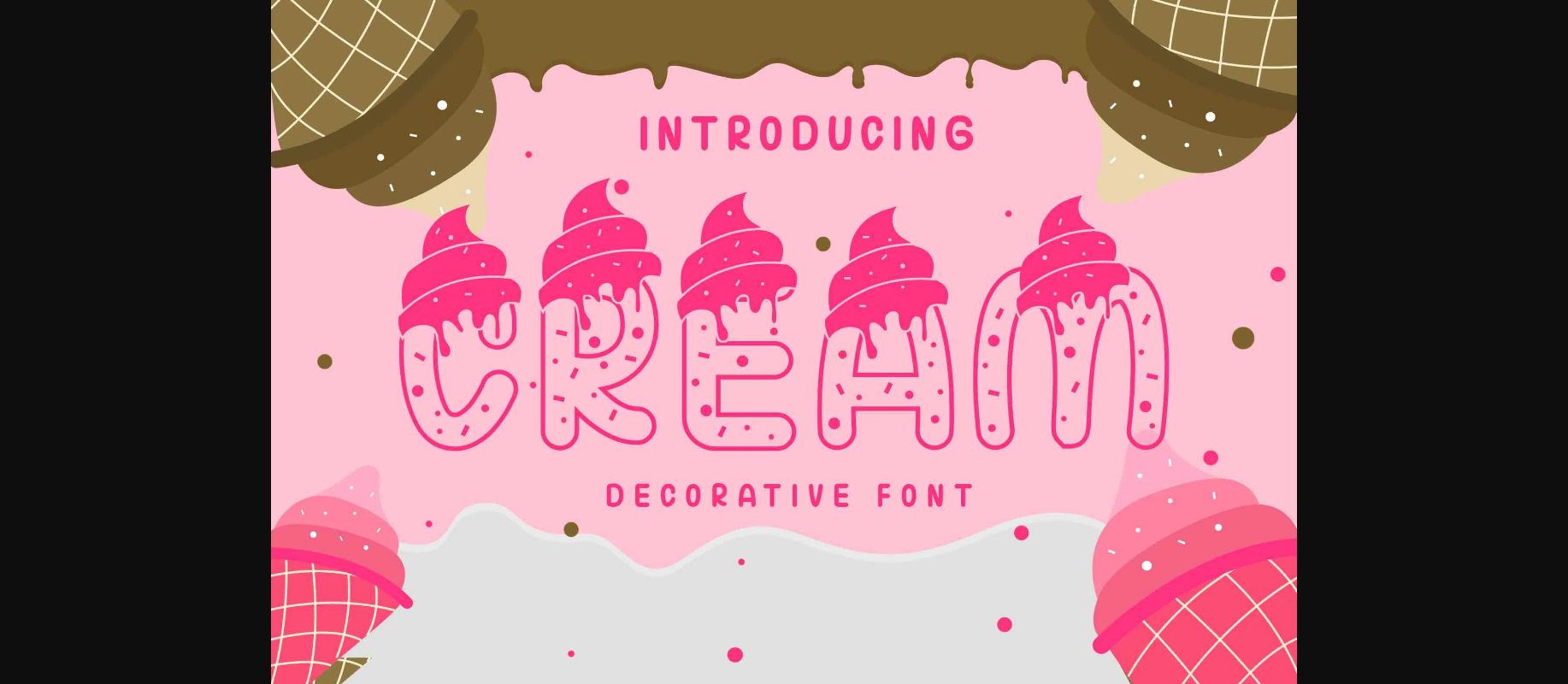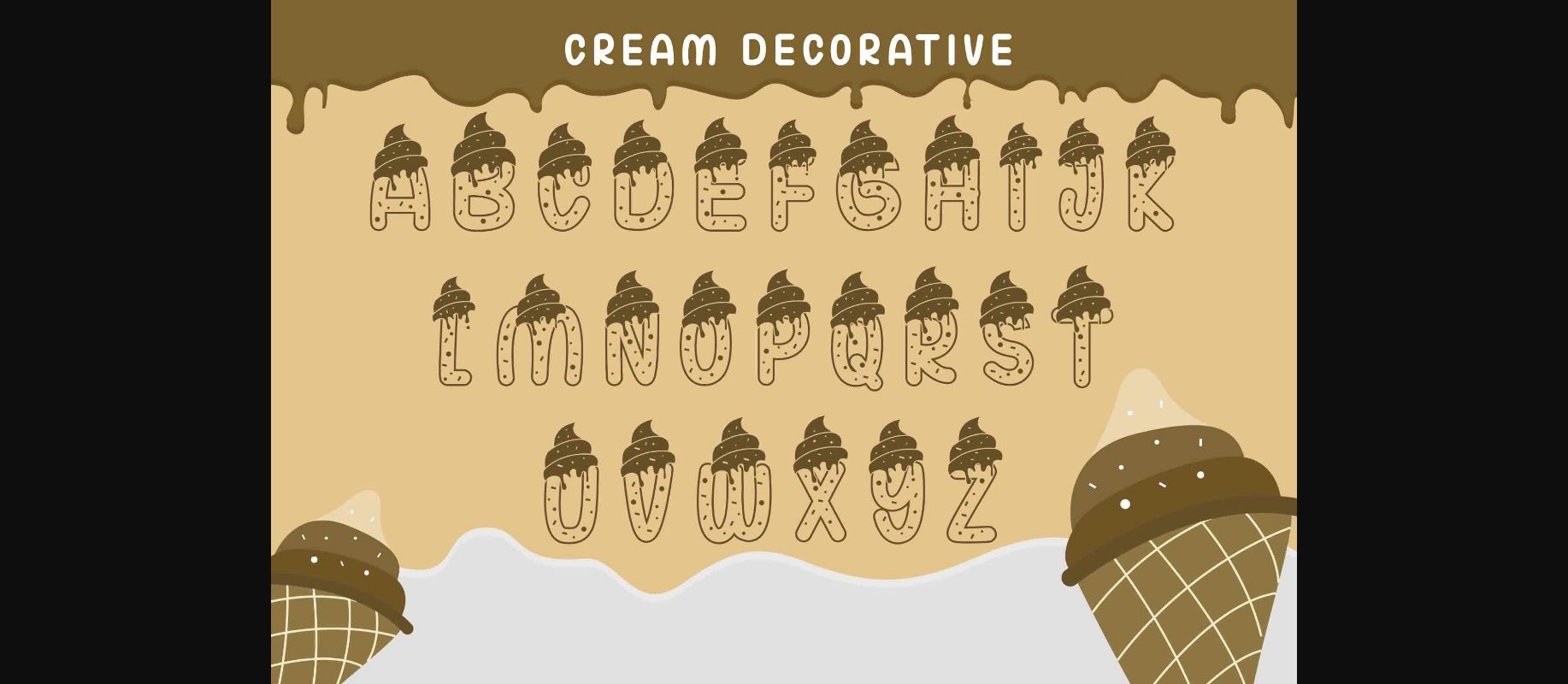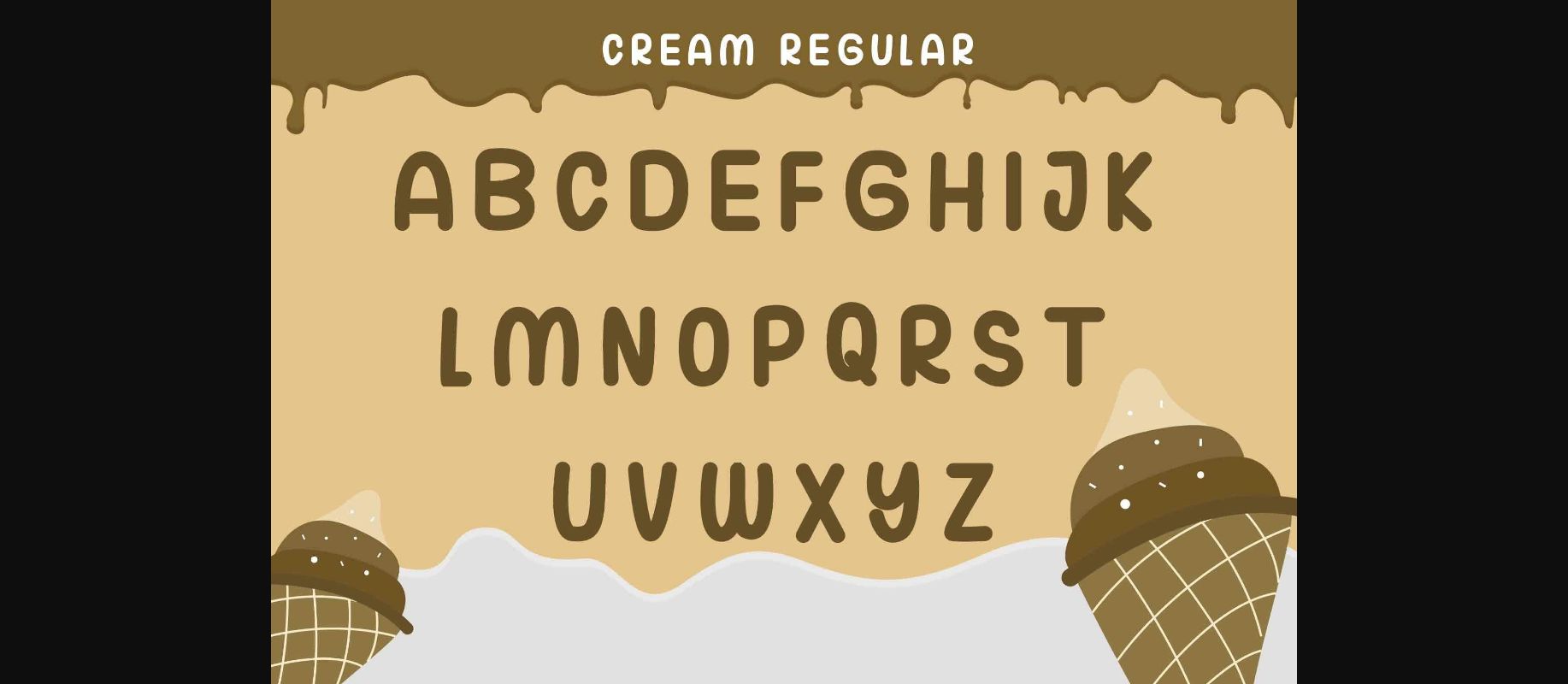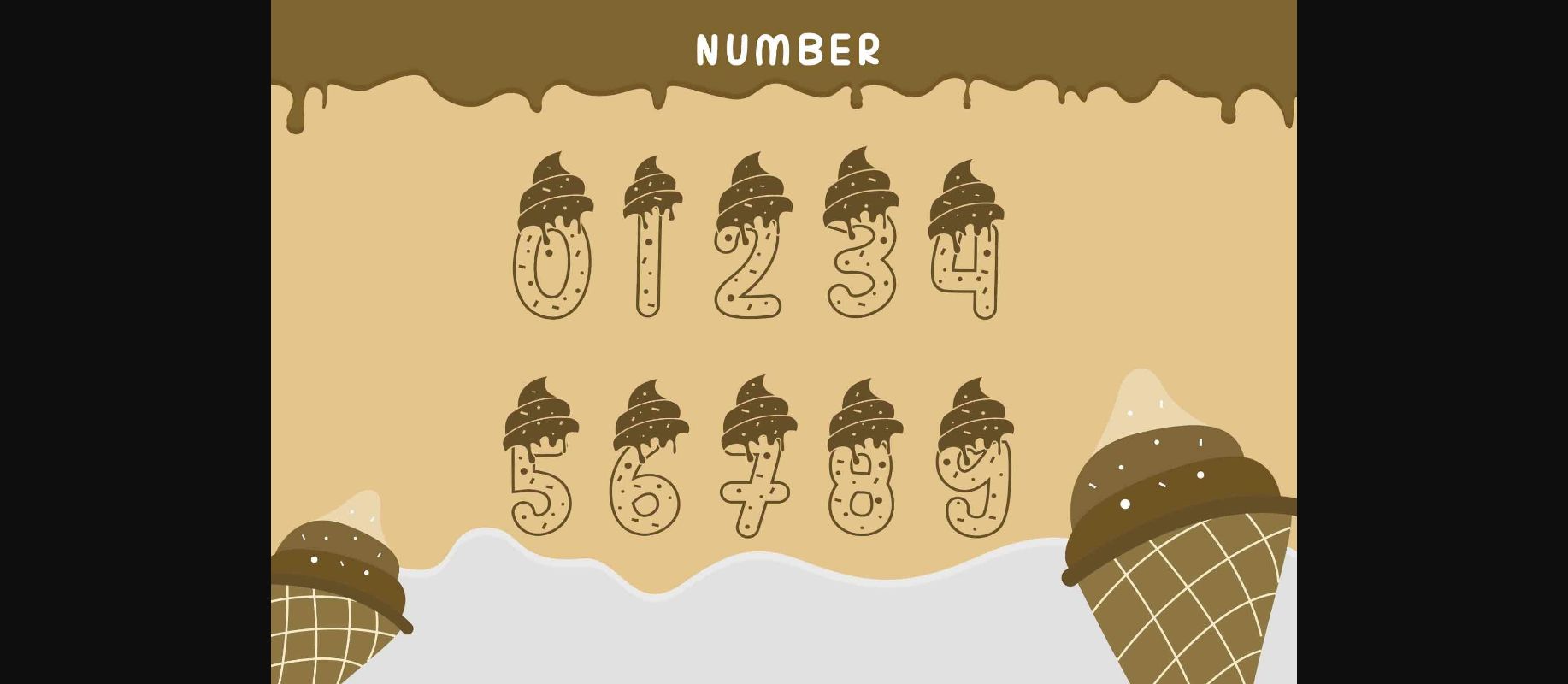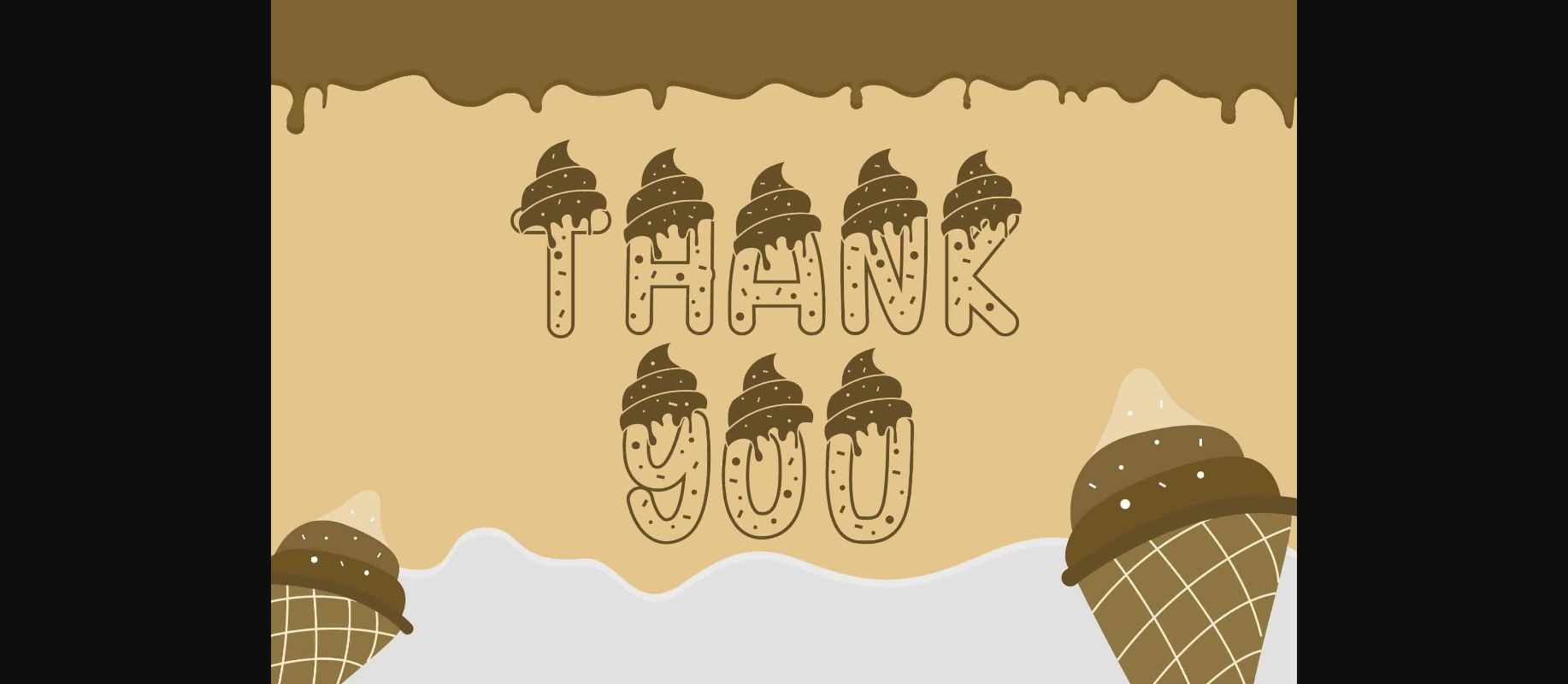
Cream Font
About Cream Font
Cream is a fun and cute decorative font. It’s perfect for children’s themed designs such as greeting cards, posters, happy birthdays, and more. This font can be combined with bright and colorful colors for adorable and friendly projects!